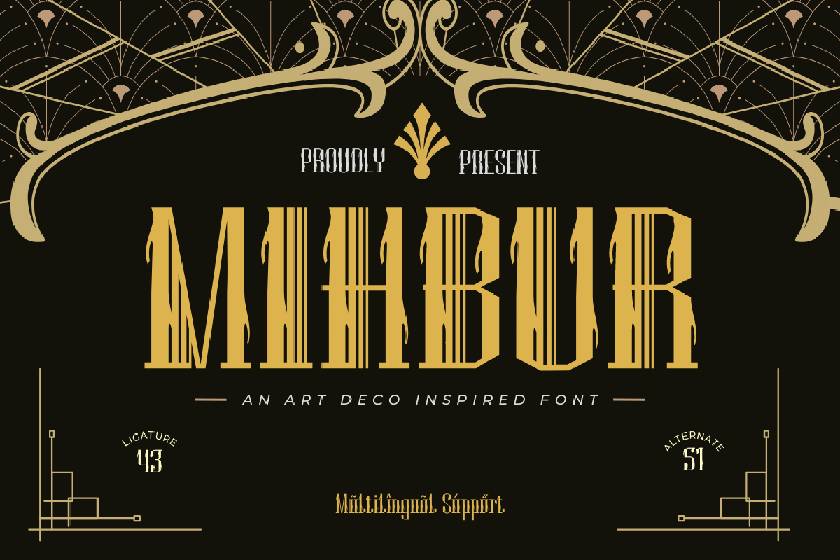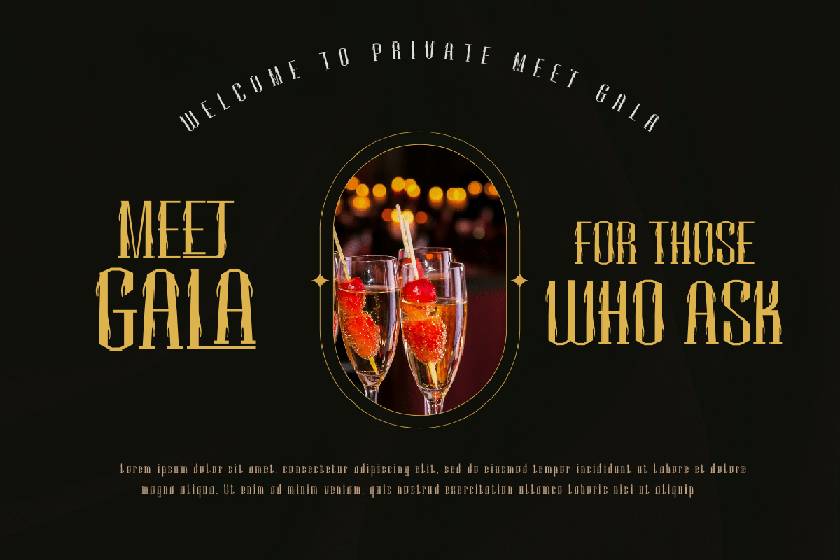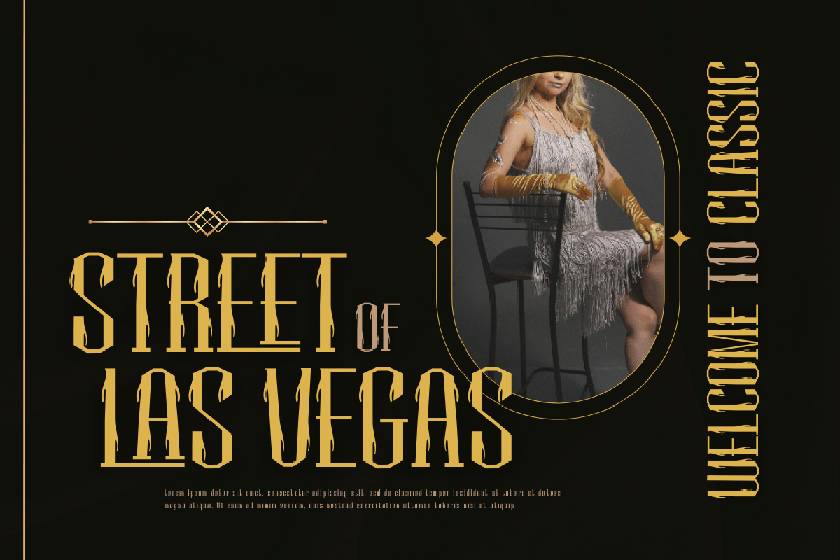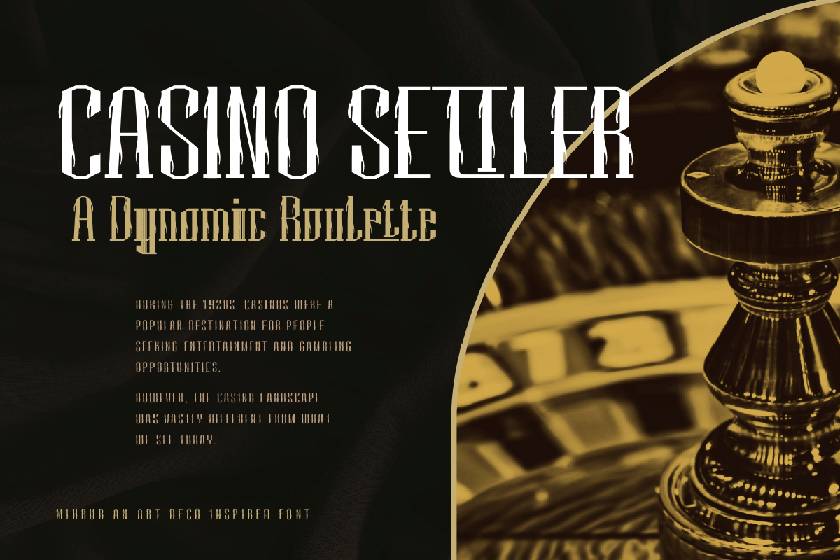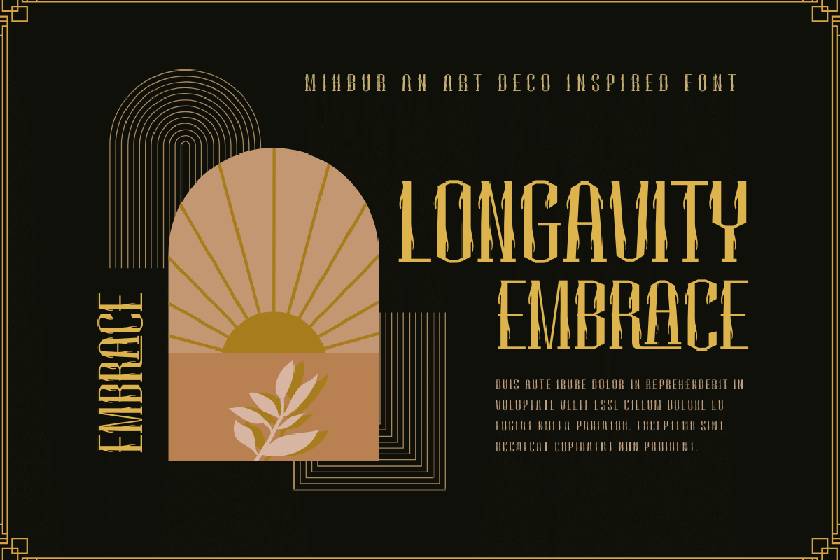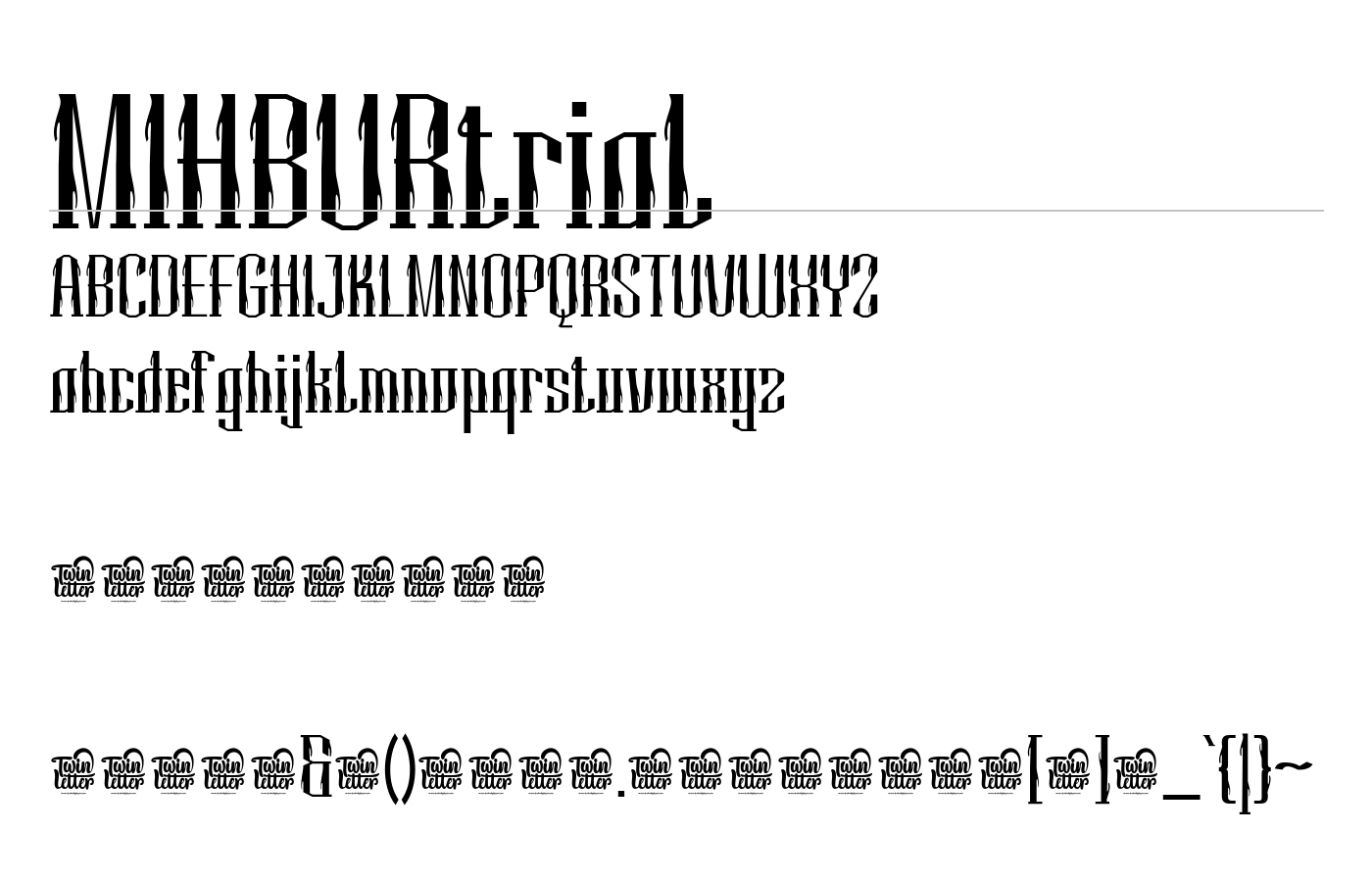
Mihbur is a condensed serif font with a tall, narrow structure and high contrast between thick and thin strokes, giving it a dramatic, vintage-inspired look. Its sharp, angular serifs and intricate details convey a bold, elegant personality, making it ideal for eye-catching headlines, logos, and branding that seeks a unique and sophisticated style. This font works best in display uses where its distinctive character can shine without compromising readability.
Mihbur Font